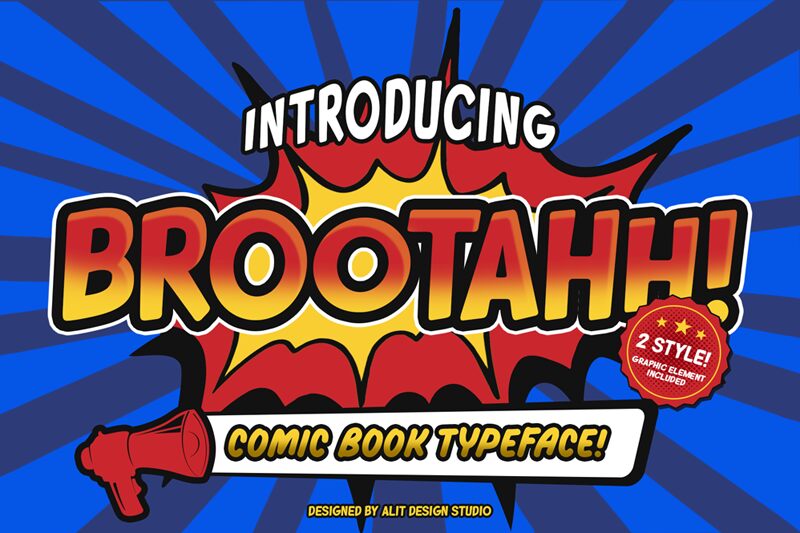
Brootahh, crafted by the creative minds at Alit Design, stands out as a bold display font with a playful comic style that instantly captures attention. Its chunky, well-defined letters exude confidence and energy, making it an excellent choice for projects that demand a touch of humor and personality. The robust weight of Brootahh adds to its visual impact, ensuring that any text set in this typeface is both readable and memorable.
Perfect for everything from eye-catching headlines to spirited advertising campaigns, Brootahh's aesthetic appeal lies in its balance of whimsy and assertiveness. Whether you're designing for print media, digital platforms or crafting unique branding materials, this font's lively character will undoubtedly infuse your creative work with a fresh and engaging vibe.